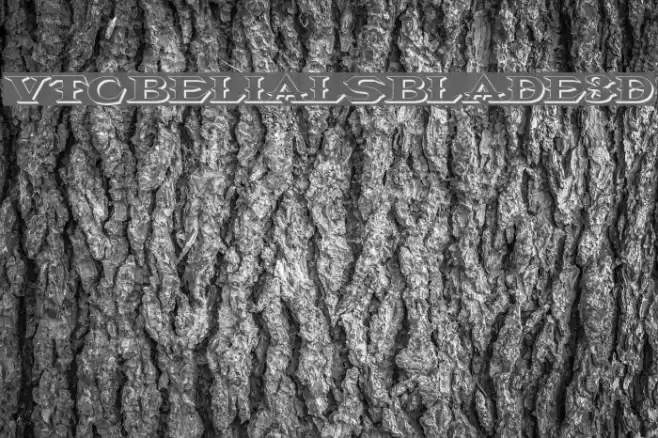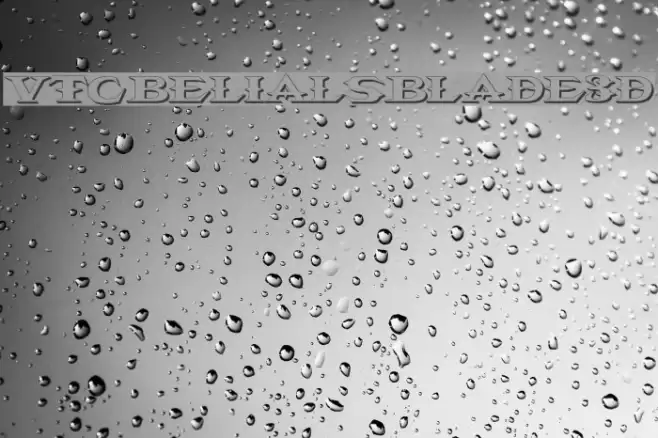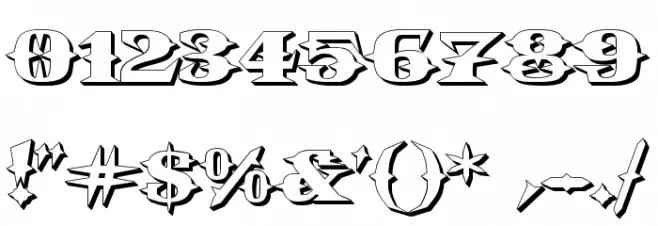
VTCBelialsBlade3d Font
VTCBelialsBlade3d Description
This font features a bold and striking design with a three-dimensional effect that gives each character a sense of depth and presence. The uppercase letters are characterized by sharp angles and geometric shapes, creating a futuristic and edgy appearance. The lowercase letters maintain this aesthetic, ensuring consistency across the typeface. Numbers and special characters are equally bold and dynamic, with unique embellishments that enhance the overall style. The font's design is highly decorative, making it suitable for projects that require a strong visual impact. Its intricate details and bold outlines make it stand out, perfect for attention-grabbing headlines or logos.
A bold, three-dimensional font with sharp angles and a futuristic style from Uncategorized fonts.
- Proposed Projects: Ideal for video game titles, sci-fi movie posters, edgy branding, and eye-catching headlines.
- Overall Style: Futuristic, Edgy, Decorative